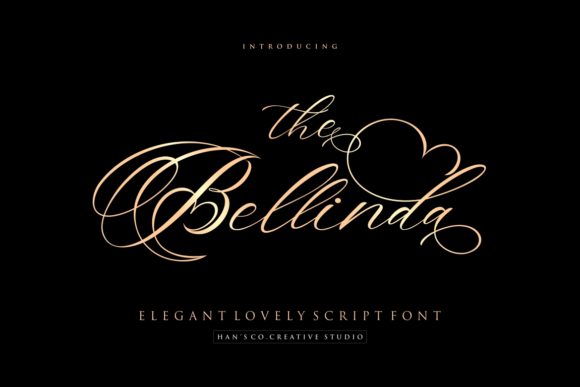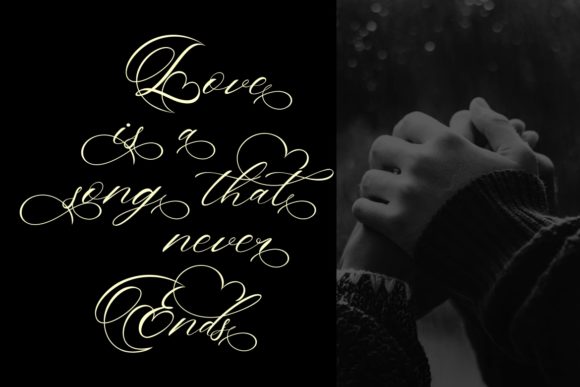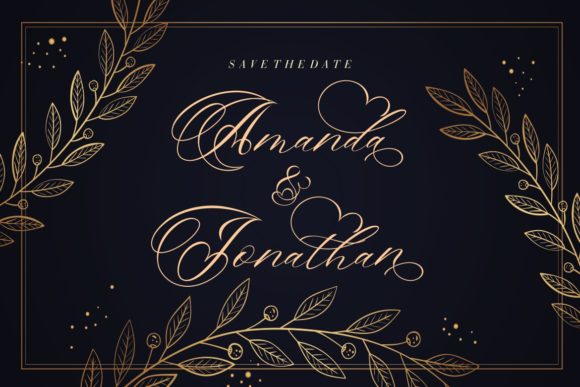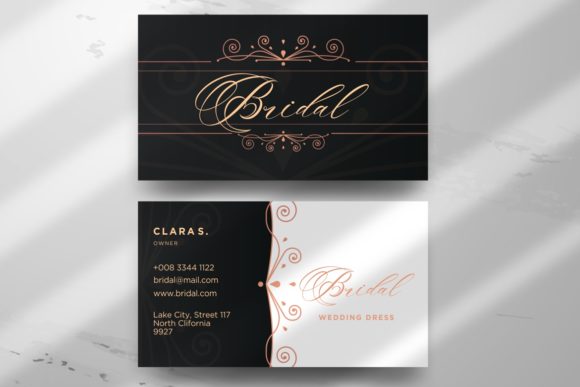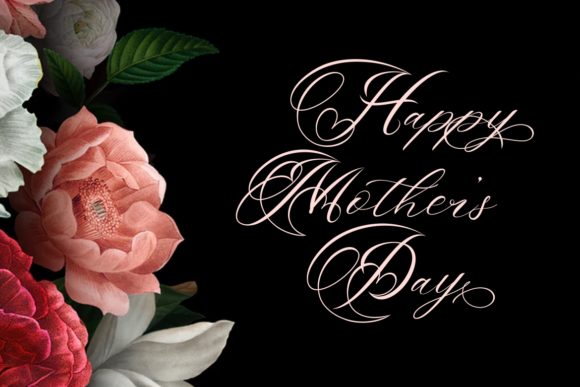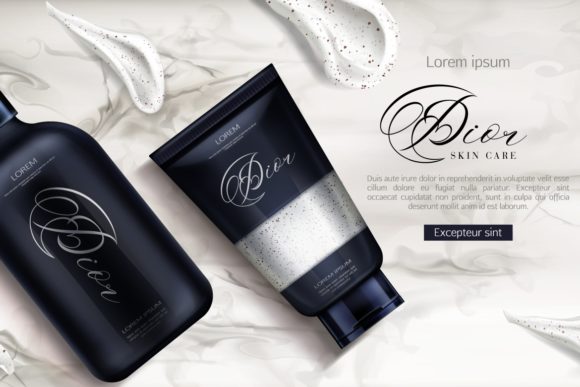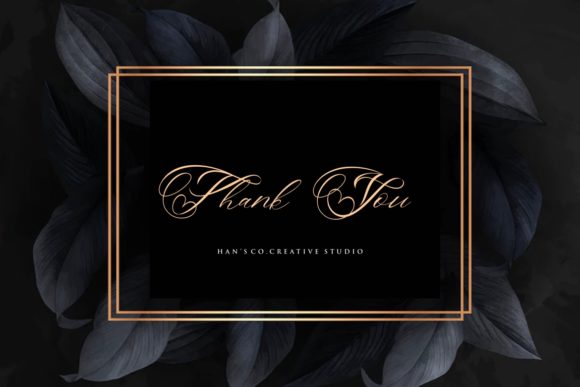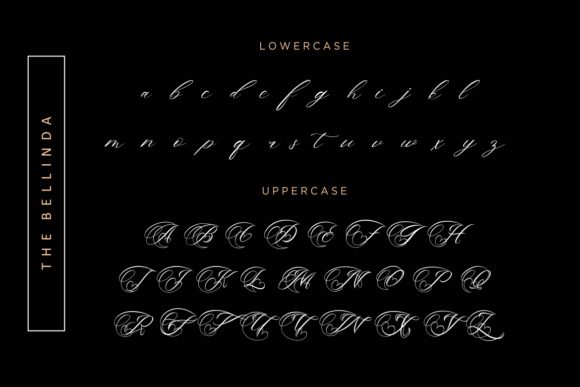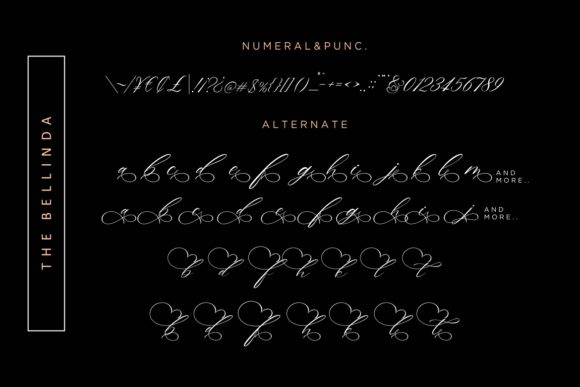
HomeScript FontsThe Bellinda Font Script Fonts The Bellinda Font FacebookXPinterestWhatsApp The Bellinda Font Poster 2 The Bellinda Font Poster 3 The Bellinda Font Poster 4 The Bellinda Font Poster 5 The Bellinda Font Poster 6 The Bellinda Font Poster 7 The Bellinda Font Poster 8 The Bellinda Font Poster 9 About The Bellinda Font The Bellinda is an romantic and luxurious script font. Fall in love with its elegant charm! DOWNLOAD NOW People also explored Table Font WexfordOakley Americano Font Rimini Font Astra Font Arthana Gisea Font Faithful Grogor Font Minotte Pro 377 0 TagsThe Bellinda Font Previous articleCephalonia FontNext articleHellowin Font LEAVE A REPLY Cancel reply Comment: Please enter your comment! Name:* Please enter your name here Email:* You have entered an incorrect email address! Please enter your email address here Website: Save my name, email, and website in this browser for the next time I comment. Personal Use Free Vexler Slip Personal Use Free Read more about this font Turpentine Personal Use Free Read more about this font Hair Thinned Personal Use Free Read more about this font Hunting Font Personal Use Free Read more about this font BLOG Transform Your Website: Elevate Your Typography with 7 Best Web Font Generators Are you ready to transform your website's typography from ordinary to extraordinary? Great! Today, we're diving into the world of web font generators, which... Best Fonts for T-Shirt Design – Top 2025 Picks Exploring Font Trends The 10 Best Handwriting Fonts to Add Personality to Your Designs